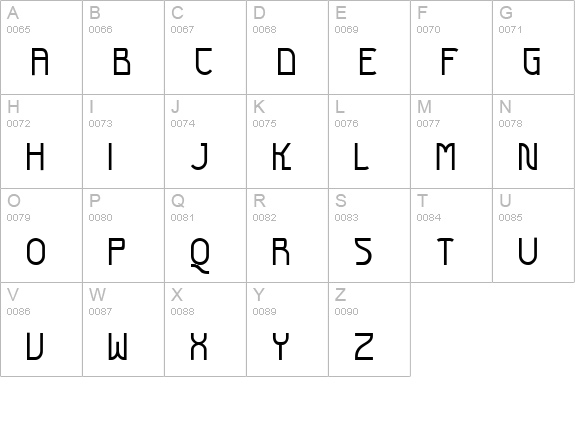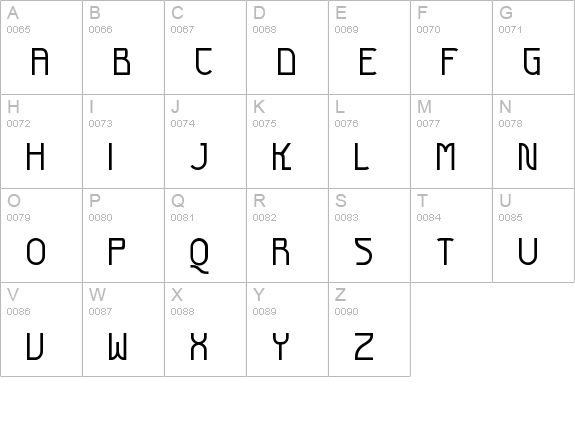
Futurex font is a modern and sleek typeface that exudes sophistication and style. With its clean lines and sharp angles, this font is perfect for creating eye-catching designs that demand attention. The versatility of Futurex font makes it suitable for a wide range of projects, from branding to editorial design. The best part? Futurex font is completely free to download at FontsMarket.com. Whether you're a professional designer looking for a new font to add to your collection or a hobbyist looking to spruce up your projects, Futurex font is the perfect choice. Download this beautiful font today and start creating stunning designs that stand out from the crowd.